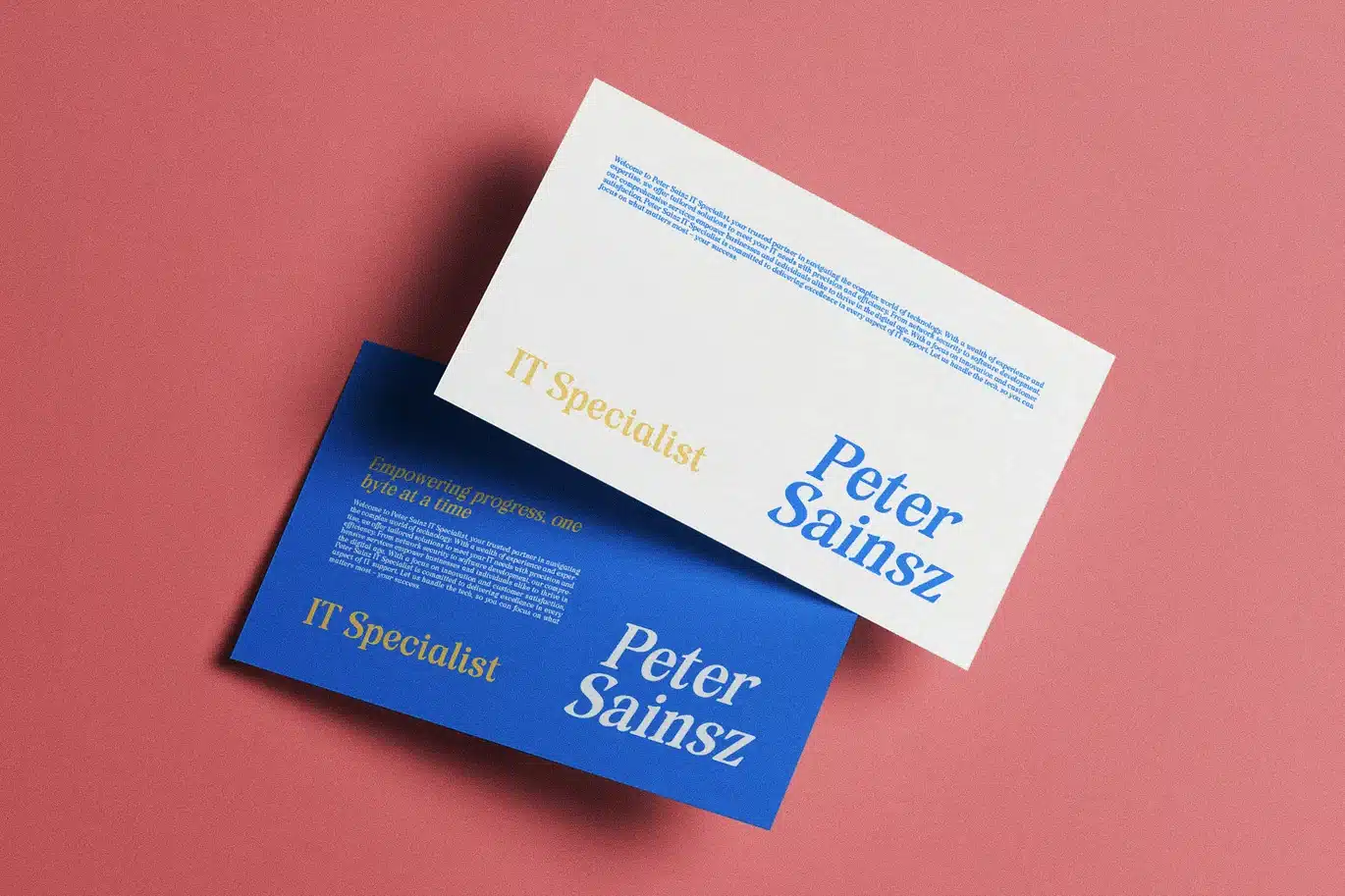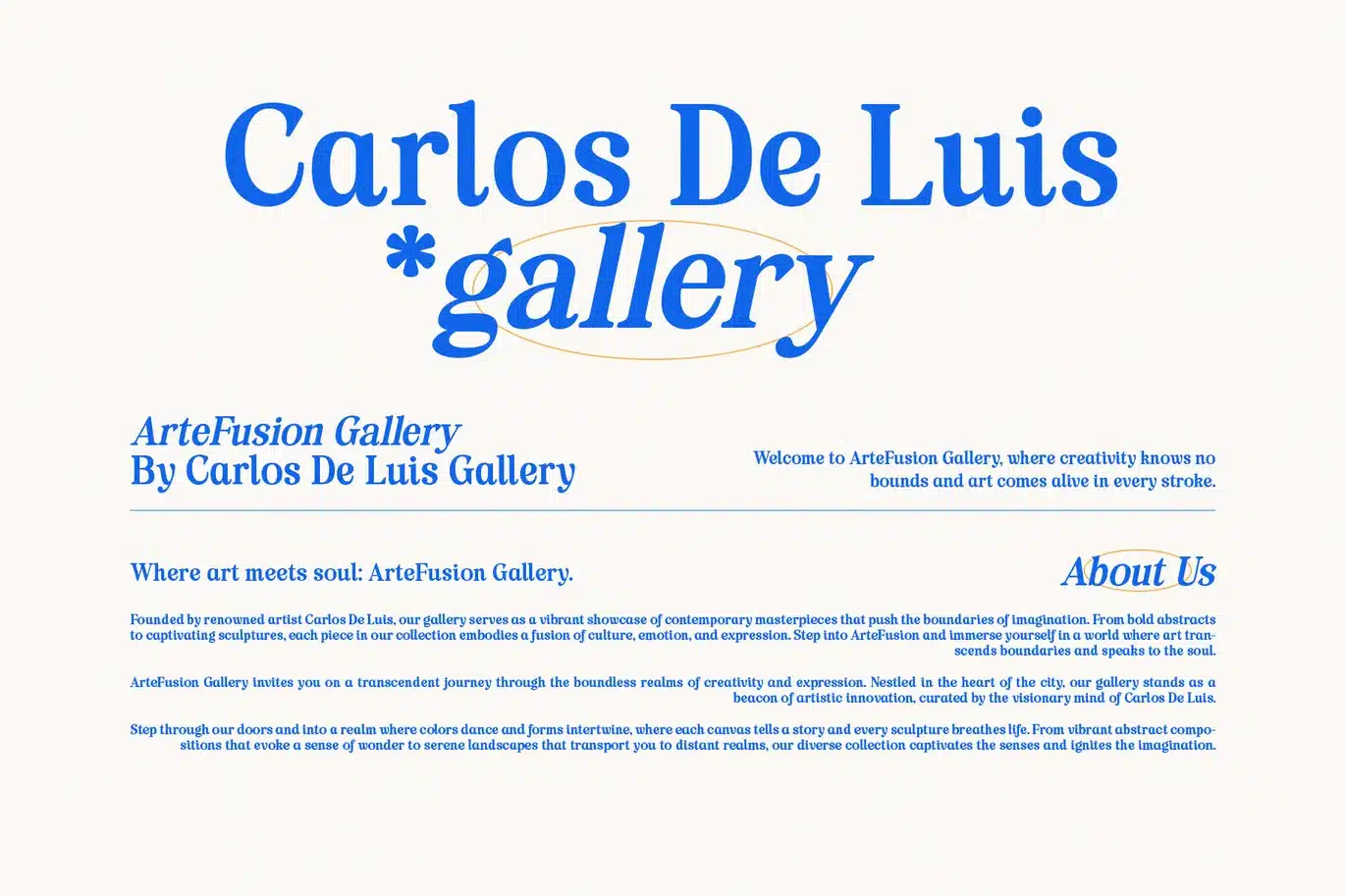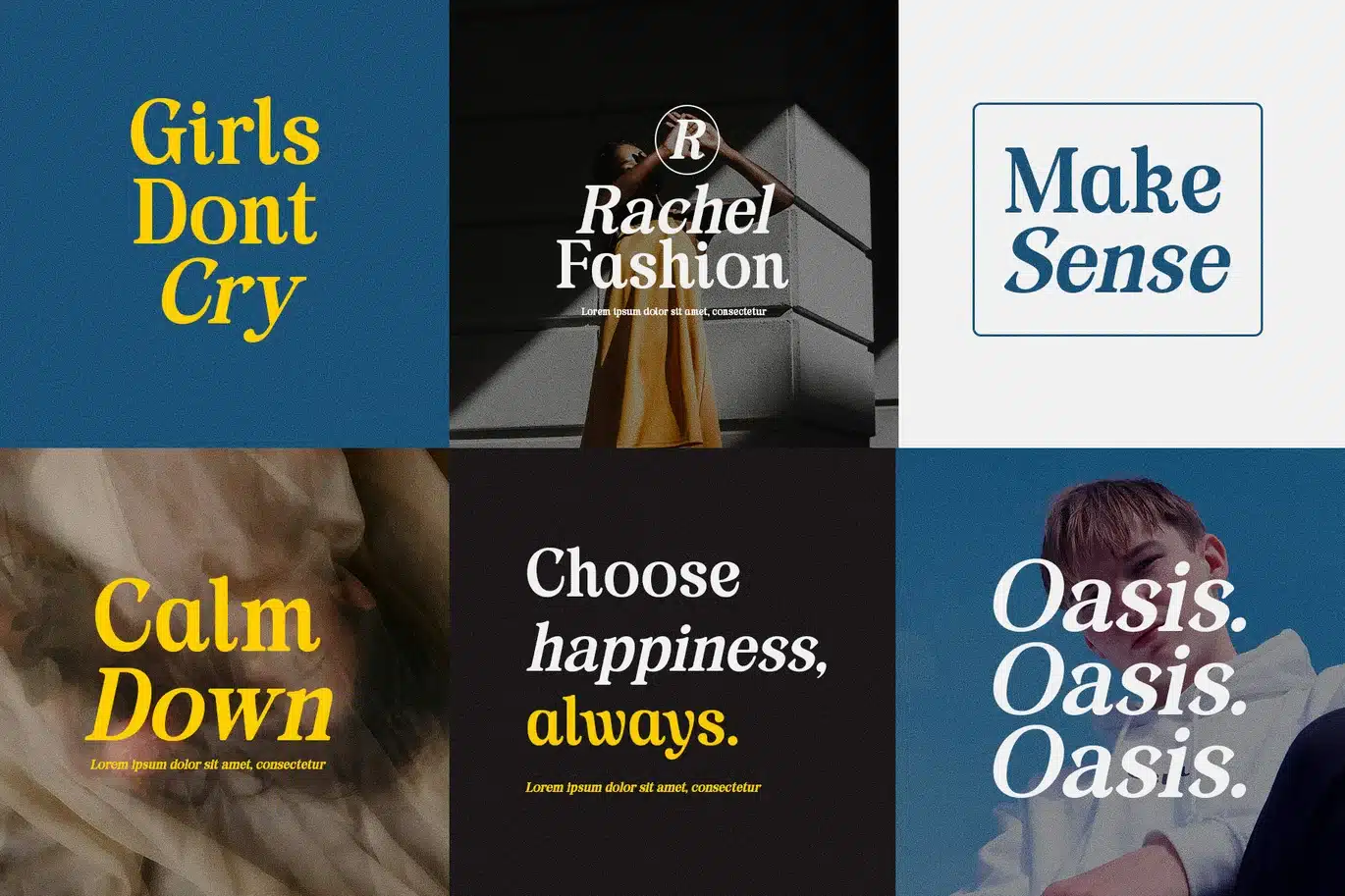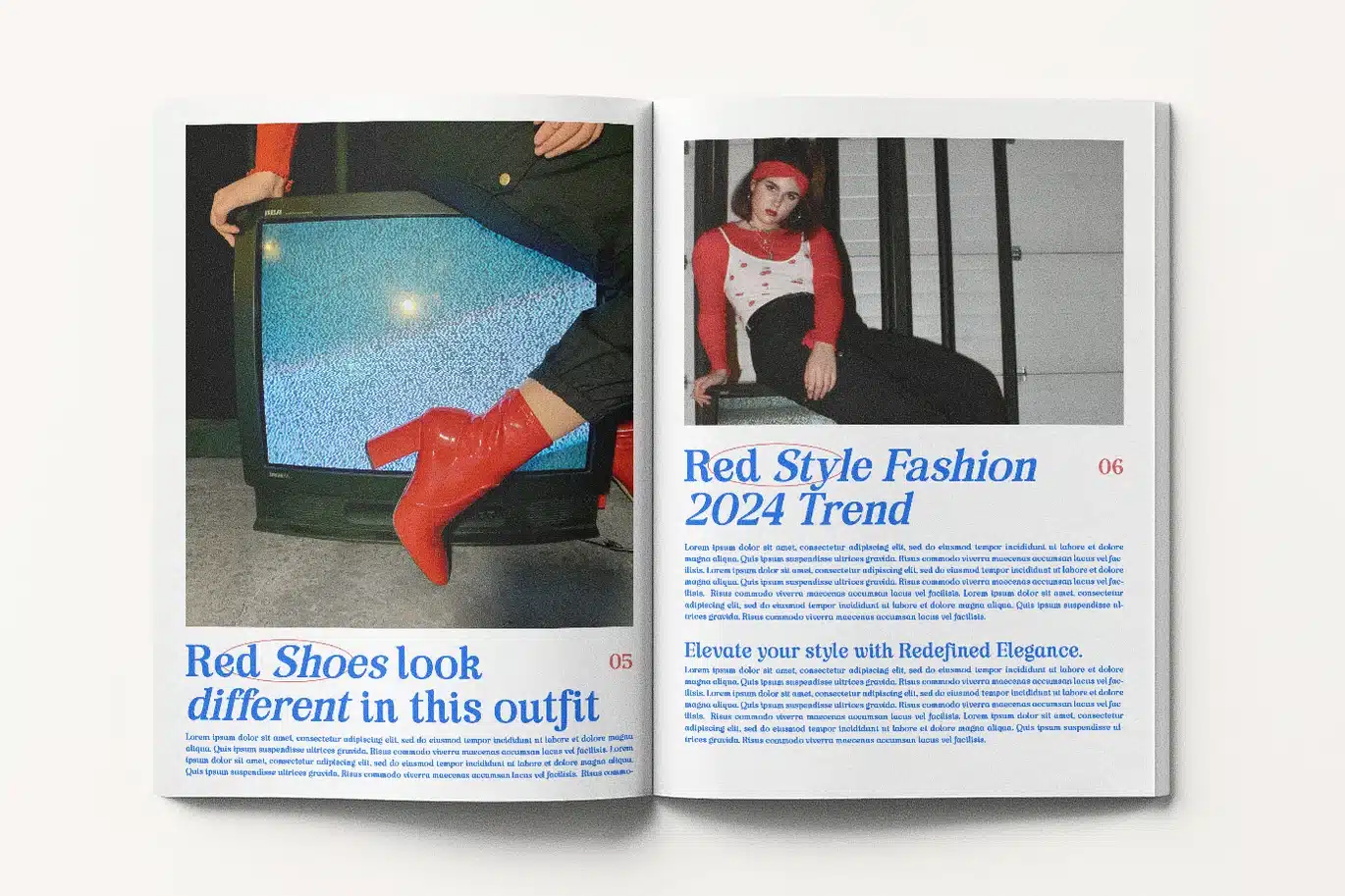
Rumelaz Gekinsa Serif Family – Classic Elegant Font
Rumelaz Gekinsa Family is a refined serif font collection that brings classic elegance to modern designs. It combines timeless serif details with clean, sharp lines, making it perfect for a wide range of projects. Whether you are designing book covers, editorial layouts, branding, or website headers, this font family provides clarity and style.
This serif family offers a balanced look that is both formal and inviting. It includes multiple weights and styles, allowing you to mix and match for creative flexibility. Because of this, you can create strong headlines, readable body text, or elegant quotes with ease. The font’s sharp edges and smooth curves give your text a professional and polished appearance.
In addition, Rumelaz Gekinsa Family supports a variety of uses:
Ideal for editorial, print, and digital projects
Works great for branding, logos, and packaging
Suitable for headlines, body copy, and captions
Includes different weights for versatile typography
Clean and classic style with modern touches
Furthermore, this font family improves readability and adds sophistication. It is especially useful for designers looking to balance tradition and modernity. You can use it in magazines, newspapers, websites, or corporate materials where clarity is important.
Overall, Rumelaz Gekinsa Family is a powerful tool for creating elegant and professional designs. It helps you present your message clearly while maintaining a stylish and classic tone. With its versatile weights and clean serif details, this font family adapts to many creative needs, making it a valuable choice for any designer.